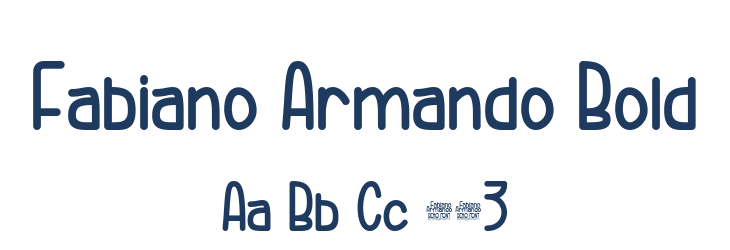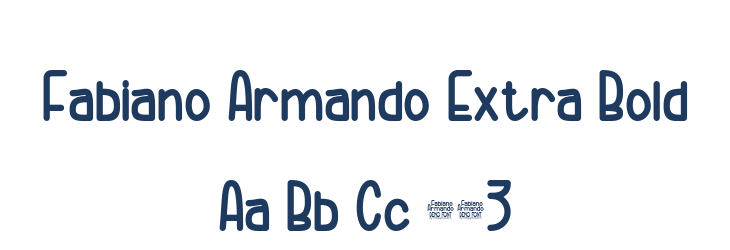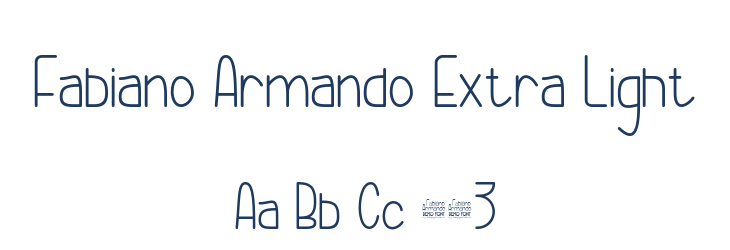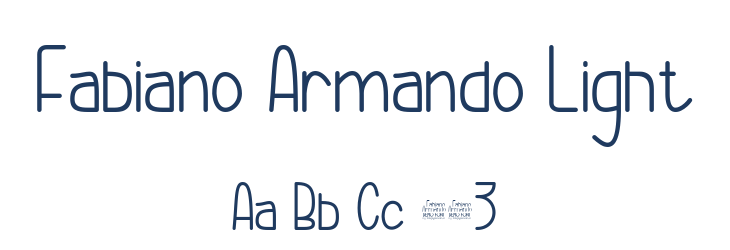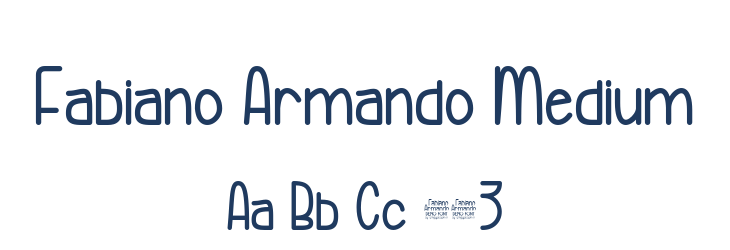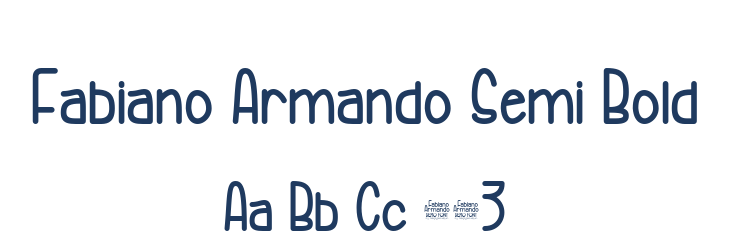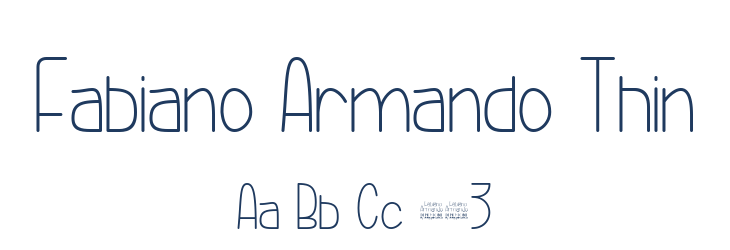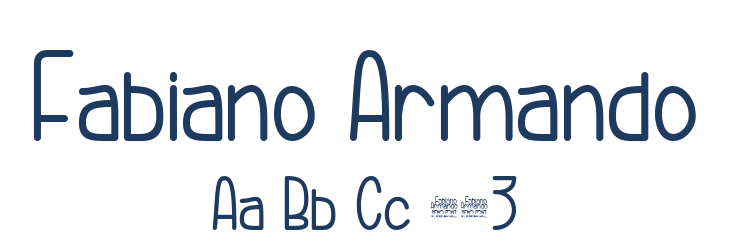
Armani Regular Font
A bold, hand-painted style font with an expressive and dynamic character.
Irregularis Font
A playful, hand-drawn font with irregular strokes and a casual, artistic style.
Armand_Cocktail Font
A sophisticated script font with elegant, flowing curves and intricate detailing.
Armand_Extra Font
A flowing, cursive script font with elegant, connected characters.
Armand_chief Font
An elegant, flowing script font with ornate uppercase and cursive lowercase letters.
Basement Font
A bold, geometric font with a modern and futuristic style.
Fabiano Armando Extra Bold Font
Extra bold, rounded sans-serif with a playful and informal style.
Spooky Boo _ Armaniarch Regular Font
A bold, jagged font with a spooky, playful style.
Fabiano Armando Semi Bold Font
Rounded, semi-bold sans-serif with playful, informal style.
Fabiano Armando Light Font
A light, rounded geometric sans-serif with tall, narrow proportions.
Fabiano Armando Extra Light Font
A thin, rounded, and modern sans-serif font with tall, narrow letters.
Fabiano Armando Font
Tall, rounded sans-serif with playful, informal style.
Fabiano Armando Medium Font
Rounded geometric sans-serif with a playful, modern look.
Fabiano Armando Thin Font
A thin, geometric sans-serif font with tall, narrow shapes.
Fabiano Armando Bold Font
Playful, rounded, bold sans-serif with smooth curves.
EmparioArmani Font
An elegant and sophisticated script font with flowing, cursive letterforms.
Bella Armanda Font
A lively and elegant script font with fluid, connected letterforms.
Irregularis Font
A playful, irregular handwritten font with dynamic strokes.
Avessa Font